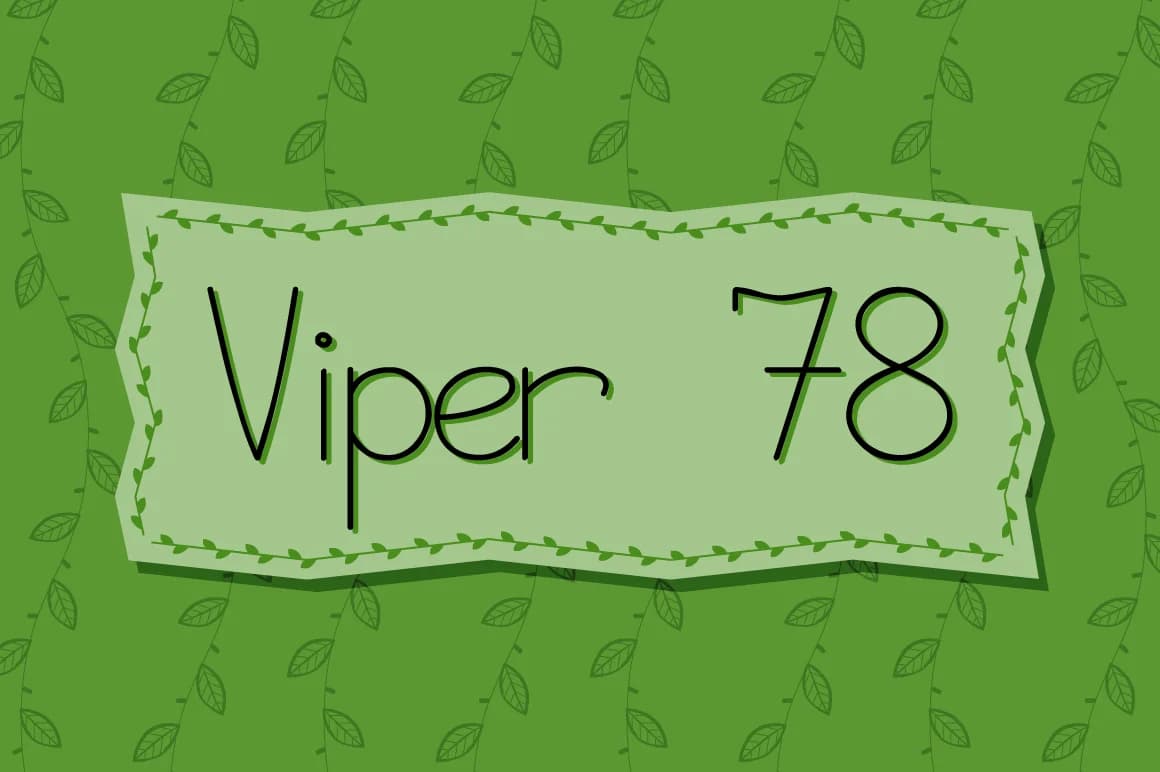
About Viper 78 Font
Viper 78 by viper78 is a casual script font that brings personality to contemporary design work. The font's delicate monoline construction and consistent thin weight make it exceptionally versatile for both display and reading purposes. Whether you're designing blog post headers, creating quote graphics for social sharing, or crafting personalized greeting cards, this typeface delivers a warm, approachable voice without sacrificing readability. Its refined yet informal character makes it an excellent choice for designers who want to feel human and authentic in their typography.
The easygoing aesthetic works particularly well for indie product branding and packaging design where authenticity matters to your audience. Podcast cover artwork, newsletter mastheads, and scrapbooking layouts all benefit from the font's friendly yet sophisticated letterforms. The consistent stroke weight provides visual stability across design applications while maintaining that hand-drawn charm that feels genuine rather than artificial. This balance makes Viper 78 suitable for both digital and print projects, from website headers to physical packaging.
With its straightforward design sensibility, the font adapts beautifully to editorial work, custom stationery design, and personal branding projects. Whether you're building cohesive assets for a small business or creating one-off designs for personal use, Viper 78 communicates warmth and approachability. Discover how this characterful typeface can bring authenticity to your next creative project on Creative Fabrica.
Viper 78 Font is a script font that shines as a display or heading face. Pair it with a clean sans-serif or serif font for body text β the contrast creates a clear hierarchy while the two styles stay balanced and easy to read.